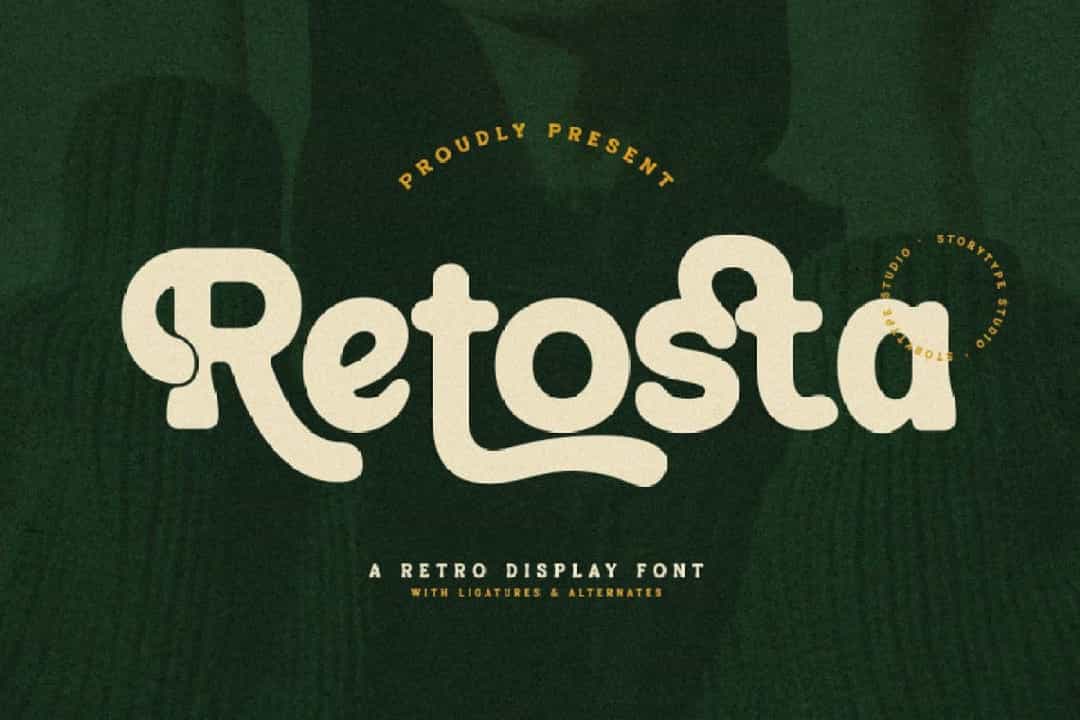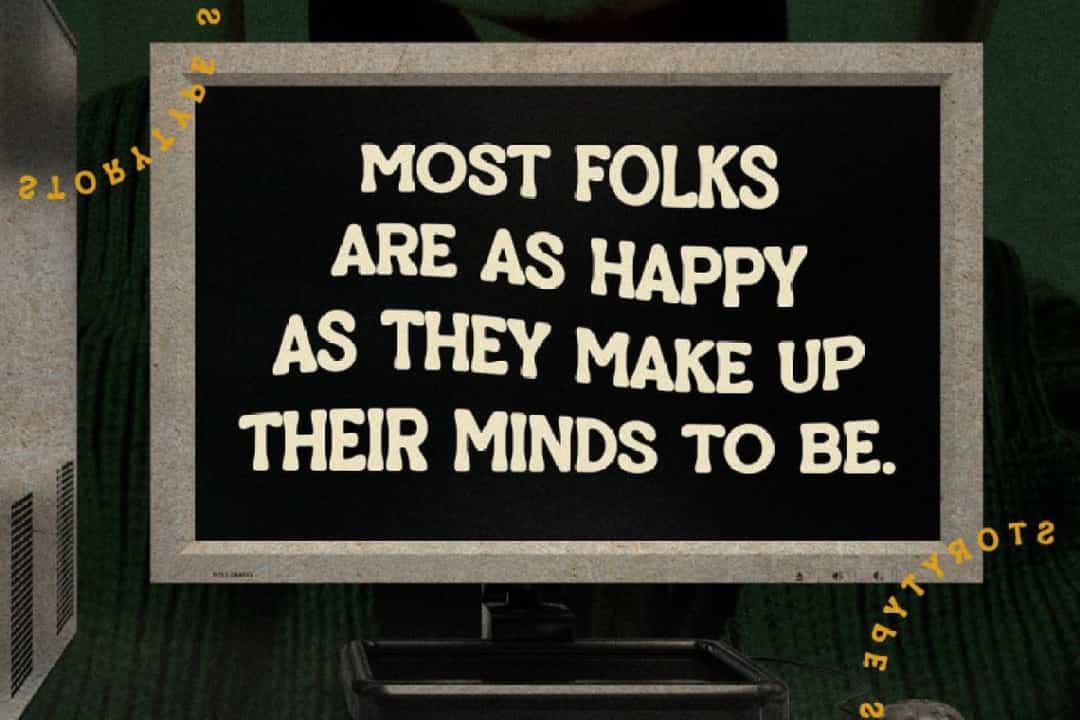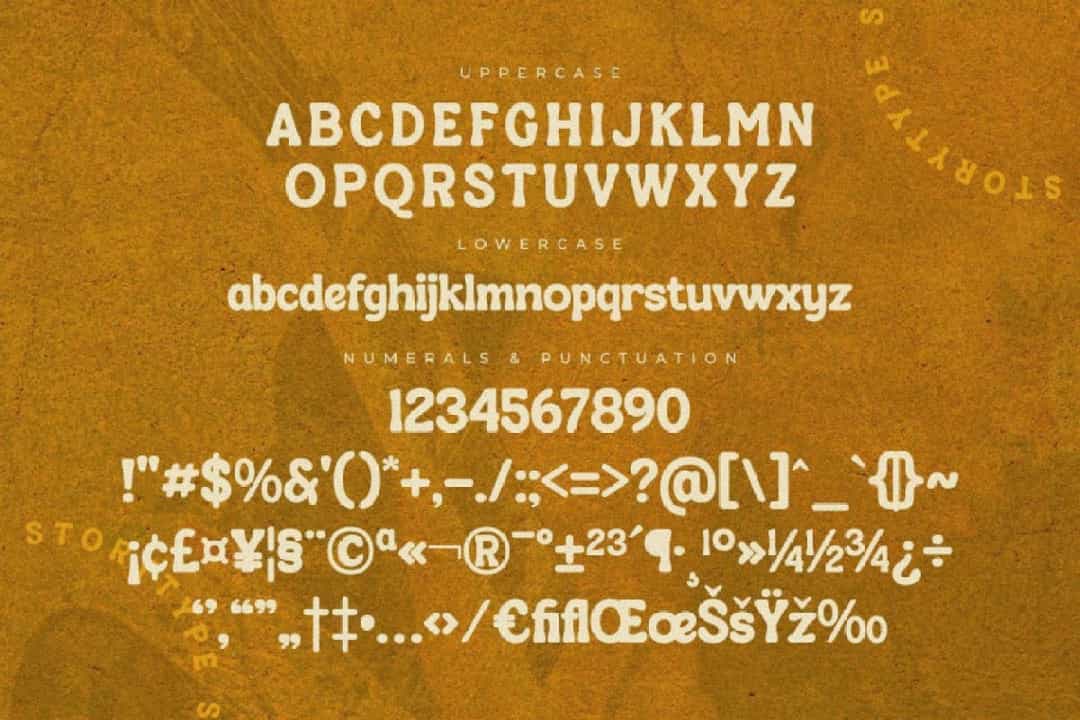
Retosta is an elegant vintage show font with an appealing retro aesthetic, perfect for logos, branding labels, posters or any project requiring retro styling.